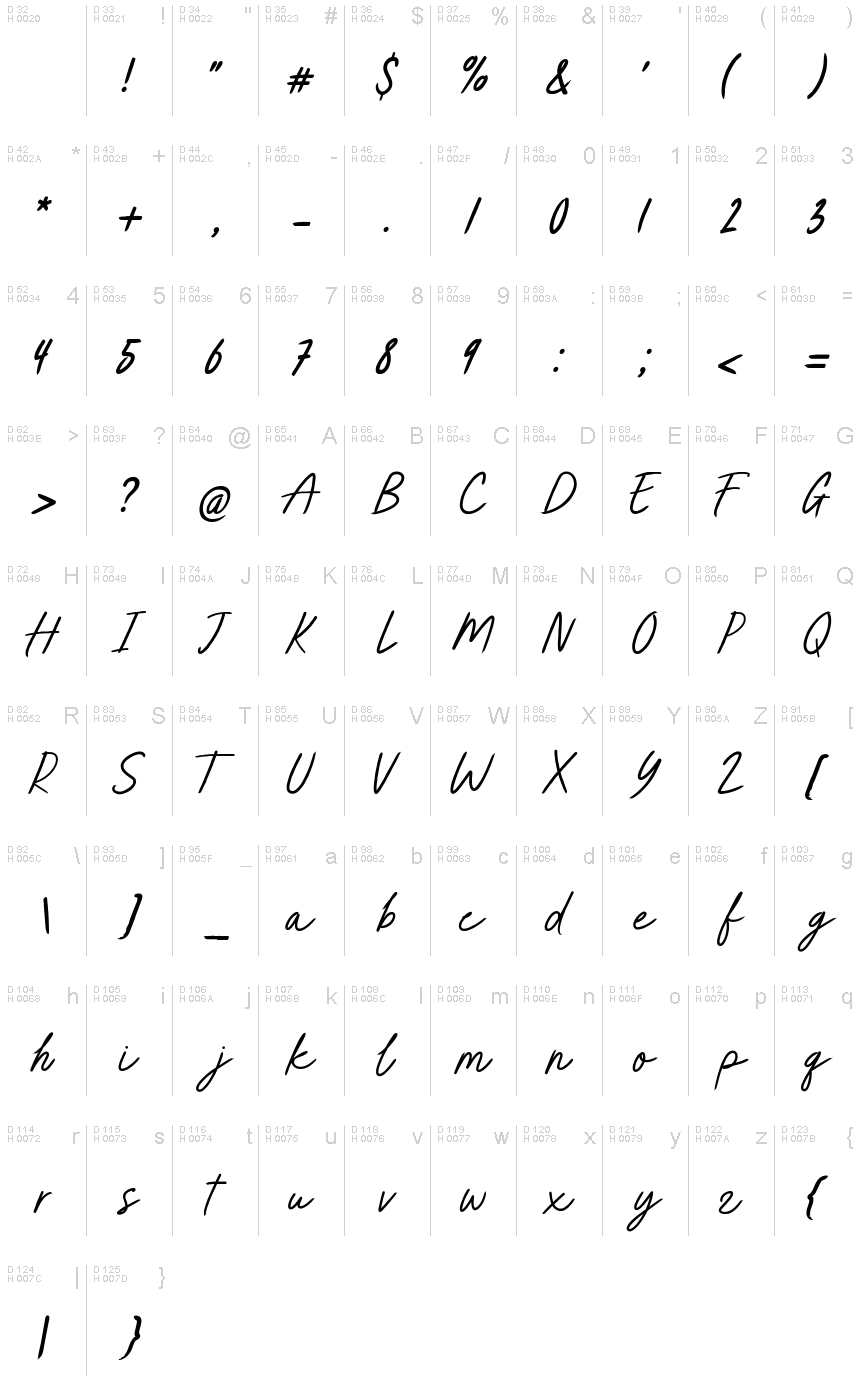
HARDCOVERScript
Hardcover Script font is designed by UI Creative and features a wonderful, classic script style! The flowing characters are based on exquisite handwritten calligraphy, with distinct and very elegant connecting glyphs. Hardcover Script is the perfect choice for many projects! With its casual mood and medium contrast, it oozes elegance and grace.
Great for designing quotes, posters, personalised cards as well as Invitations for weddings or birthdays! It’s also a unique choice for branding that will catch the eye of your customers. Try using this font in your logo or social media posts to get noticed instantly!